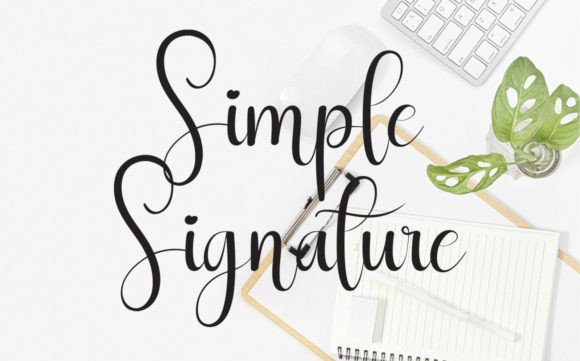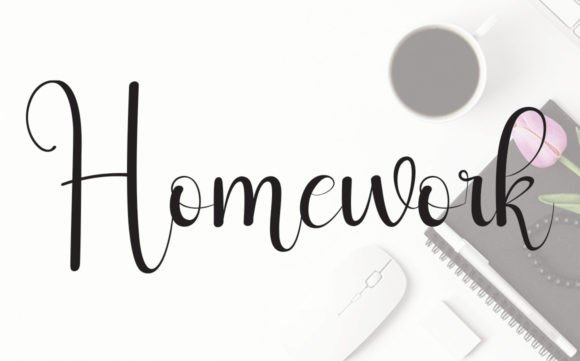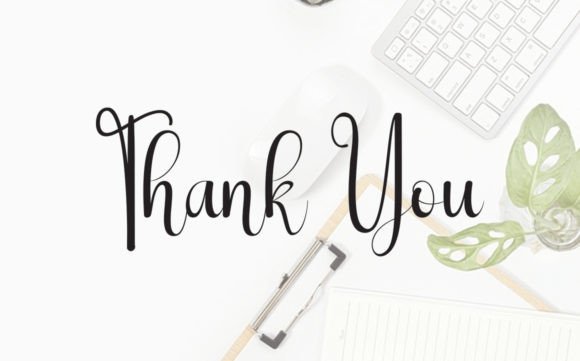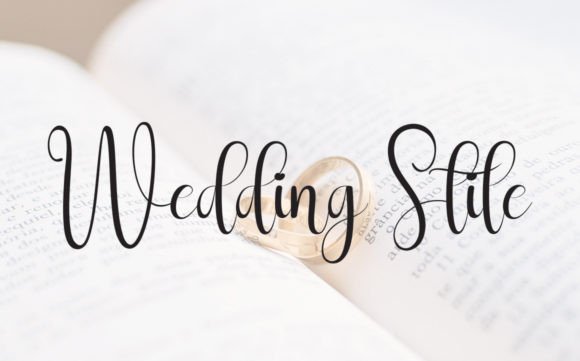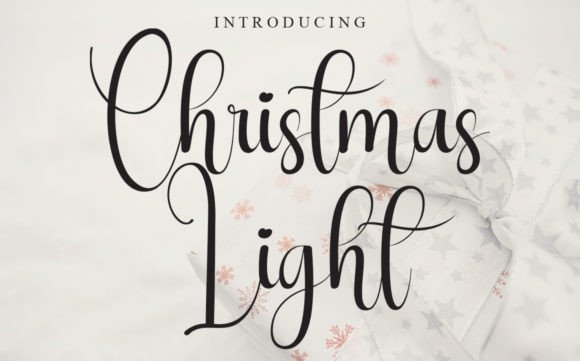
Introducing Christmas Light Font: A Sweet and Romantic Handwritten Delight
Are you looking for a font that captures the essence of the holiday season? Do you want to add a touch of romance and whimsy to your designs? Look no further than Christmas Light Font, a beautiful handwritten font that is sure to delight. In this article, we’ll take a closer look at this stunning font and explore its features, uses, and benefits.
What is Christmas Light Font?
Christmas Light Font is a sweet and romantic handwritten font that features a delicate flow. Its elegant and cursive design makes it perfect for a variety of projects, from wall displays and wedding invitations to social media posts and logos. This font is designed to add a touch of magic and wonder to your designs, making it ideal for the holiday season.
Key Features of Christmas Light Font
- Handwritten design: Christmas Light Font features a beautiful handwritten design that is both elegant and whimsical.
- Delicate flow: The font’s delicate flow makes it perfect for creating beautiful and flowing text.
- Romantic feel: The font’s romantic feel makes it ideal for wedding invitations, Valentine’s Day cards, and other projects that require a touch of love and affection.
- Versatile: Christmas Light Font can be used for a variety of projects, from digital designs to print materials.
Uses for Christmas Light Font
Christmas Light Font is a versatile font that can be used for a wide range of projects. Here are some ideas to get you started:
- Wall displays: Use Christmas Light Font to create beautiful wall displays for the holiday season.
- Wedding invitations: This font is perfect for wedding invitations, adding a touch of romance and elegance to your special day.
- Social media posts: Use Christmas Light Font to create eye-catching social media posts that are sure to delight your followers.
- Logos: This font can be used to create beautiful logos for your business or brand.
- Crafting projects: Christmas Light Font is perfect for crafters who love to create handmade cards, gift tags, and other paper crafts.
Benefits of Using Christmas Light Font
There are many benefits to using Christmas Light Font in your designs. Here are a few:
- Unique and eye-catching: This font is sure to grab attention and add a touch of magic to your designs.
- Easy to read: Despite its delicate design, Christmas Light Font is easy to read and understand.
- Customizable: You can customize the font to fit your needs, adjusting the size, color, and style to suit your project.
- Supports multiple languages: This font supports multiple languages, making it perfect for international designs.
Tips for Using Christmas Light Font
Here are a few tips for using Christmas Light Font in your designs:
- Pair with bold fonts: Pair Christmas Light Font with bold fonts to create a striking contrast.
- Use pastel colors: Pastel colors complement the delicate design of Christmas Light Font, creating a soft and romantic look.
- Experiment with sizes: Don’t be afraid to experiment with different sizes and styles to find the perfect fit for your project.
Christmas Light Font is a beautiful and versatile font that is perfect for the holiday season. Its delicate flow and romantic feel make it ideal for a variety of projects, from wall displays and wedding invitations to social media posts and logos. With its ease of use, customizability, and unique design, Christmas Light Font is sure to become a favorite among designers and crafters alike.